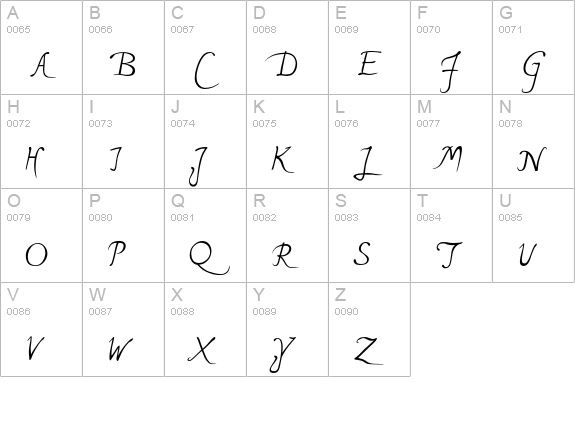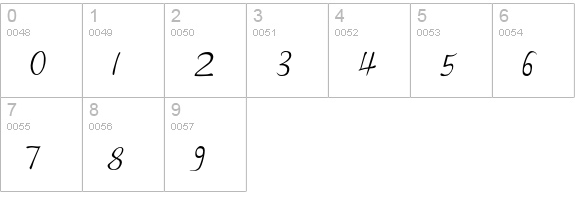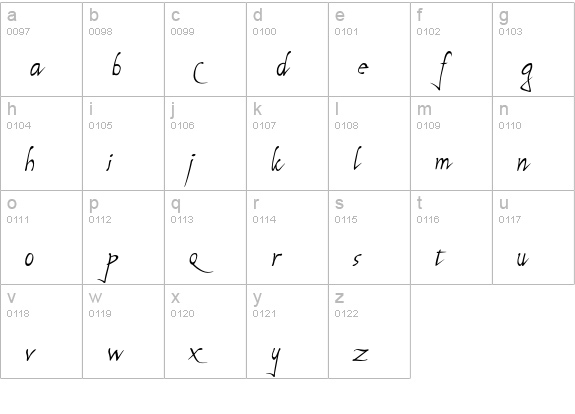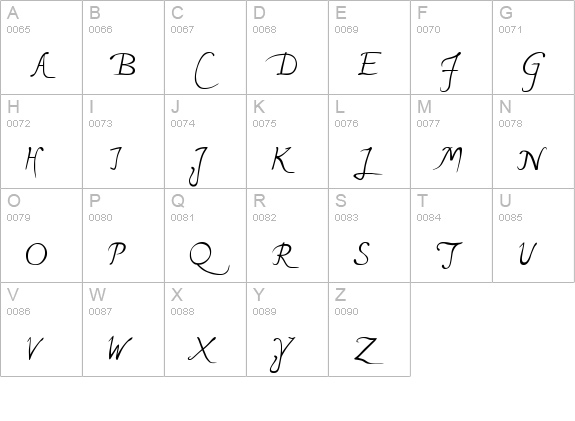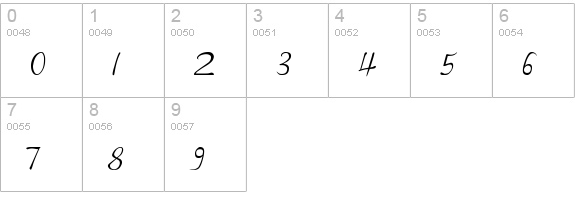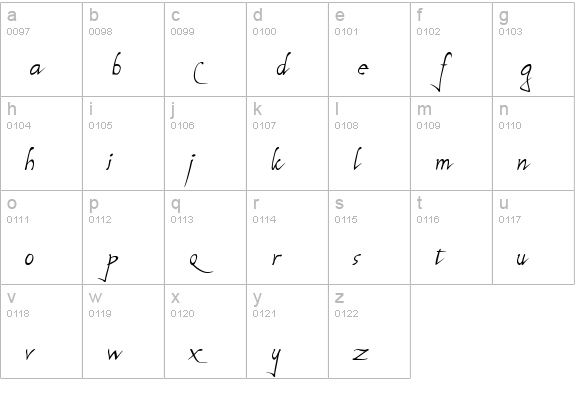
Michelangelo-Regular Font Details
Michelangelo-Regular is the standard, neutral variant in the Michelangelo typeface family \xE2\x80\x94 well suited to general body text, paragraphs, and standard typographic work.
Michelangelo-Regular is a classic and elegant font that exudes sophistication and timelessness. Its clean lines and balanced proportions make it perfect for a wide range of design projects, from branding to editorial design. The versatility of Michelangelo-Regular allows it to be used in various contexts, whether for print or digital applications. This font is free to download at FontsMarket.com, making it accessible to designers and creatives looking for a high-quality typeface without breaking the bank. With its timeless appeal and professional aesthetic, Michelangelo-Regular is sure to elevate any project it is used in. Add a touch of class to your designs with this free and versatile font.